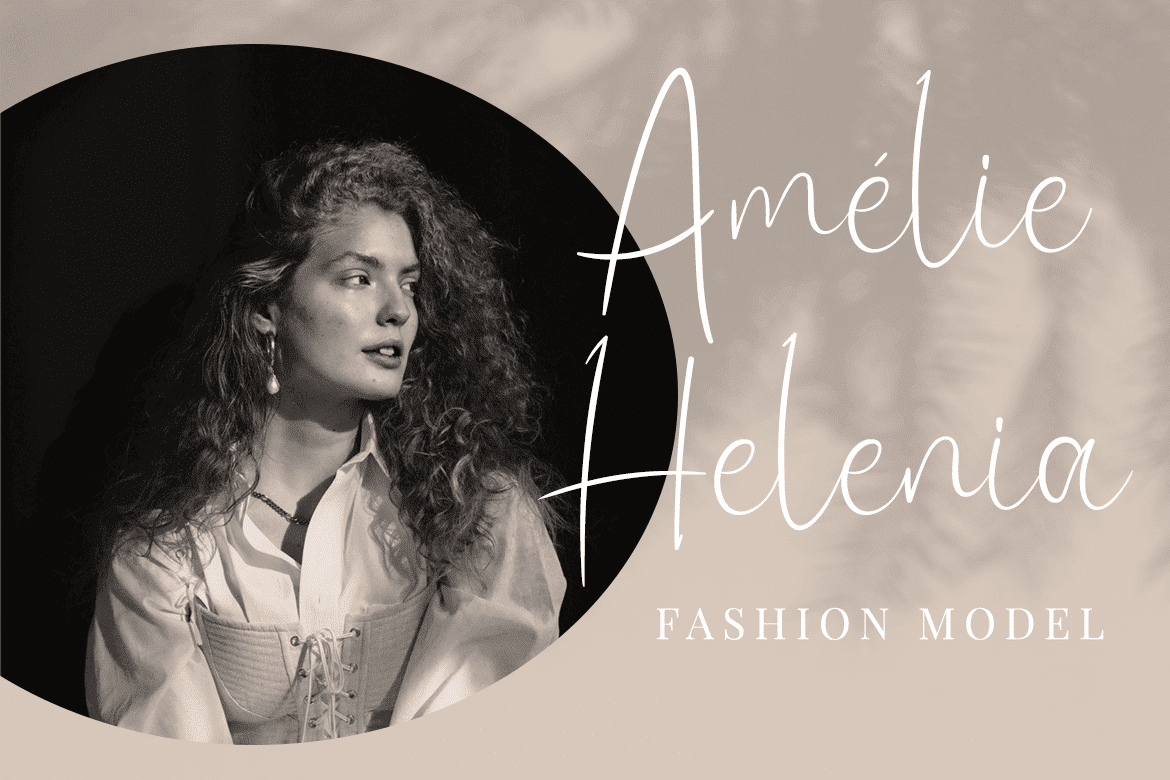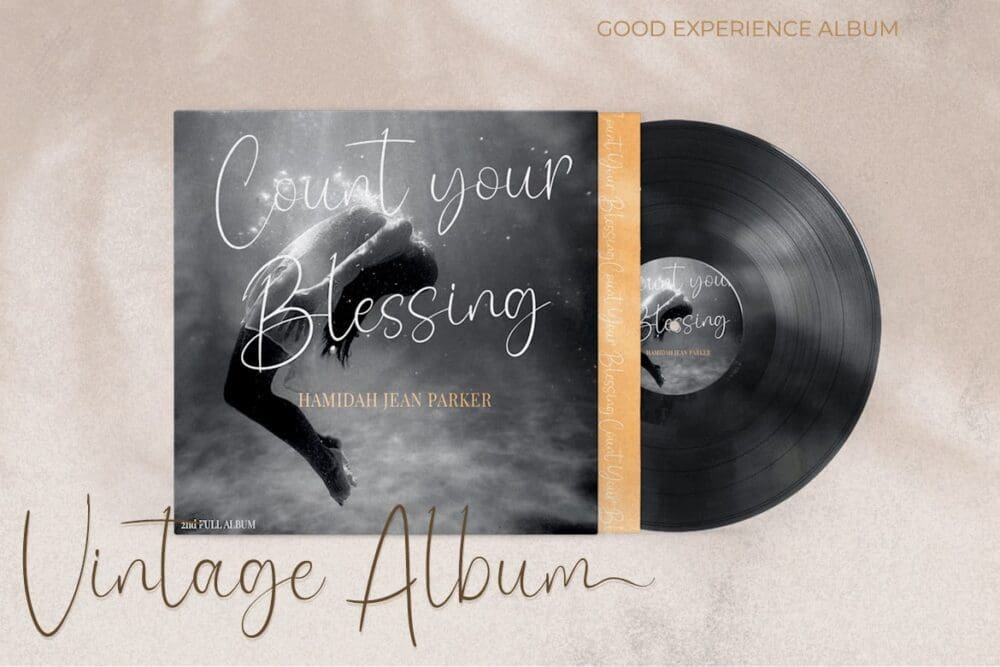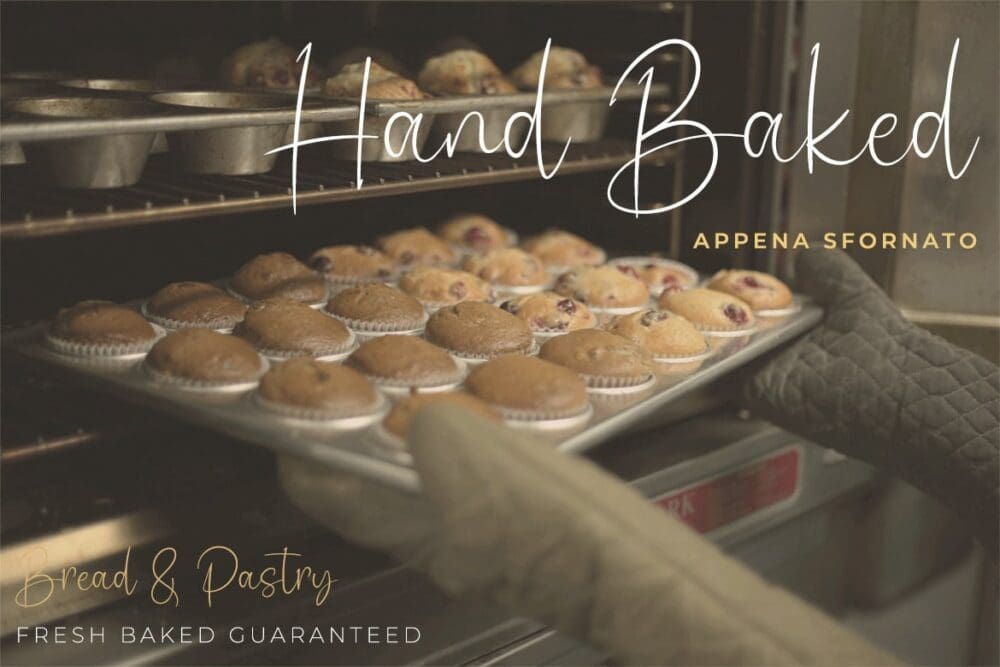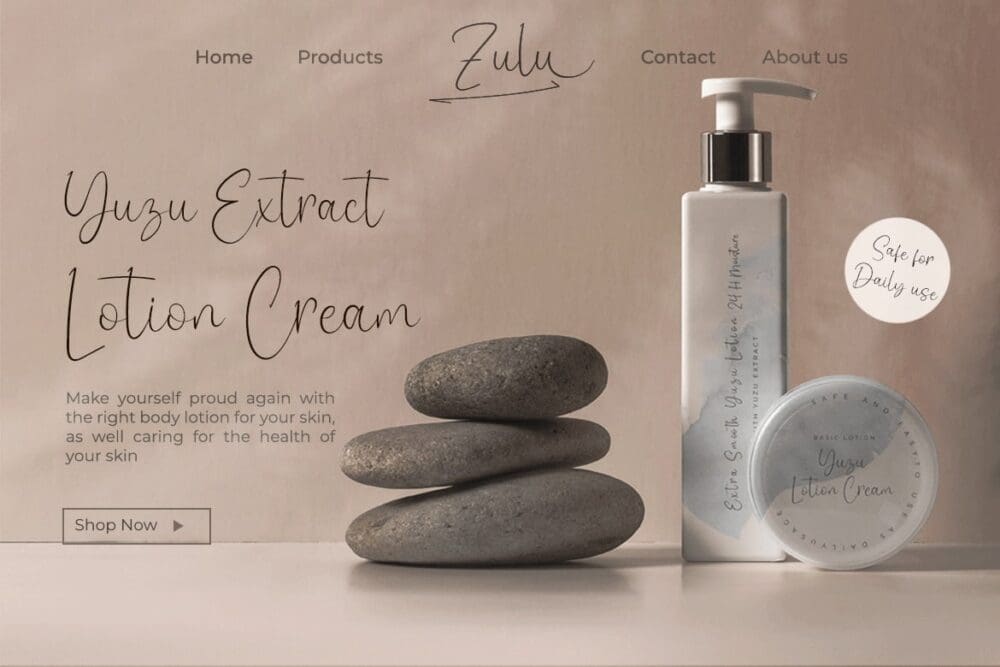
Rydhesti Font
Rydhesti is an enchanting and charming Signature Font, the beautiful and smooth curves of each letter make this font seem luxurious, clean, and beautiful. This font is equipped with a flexible choice of letters to produce the right words according to your needs. Use it to add an authentic, heartfelt vibe to any design project.